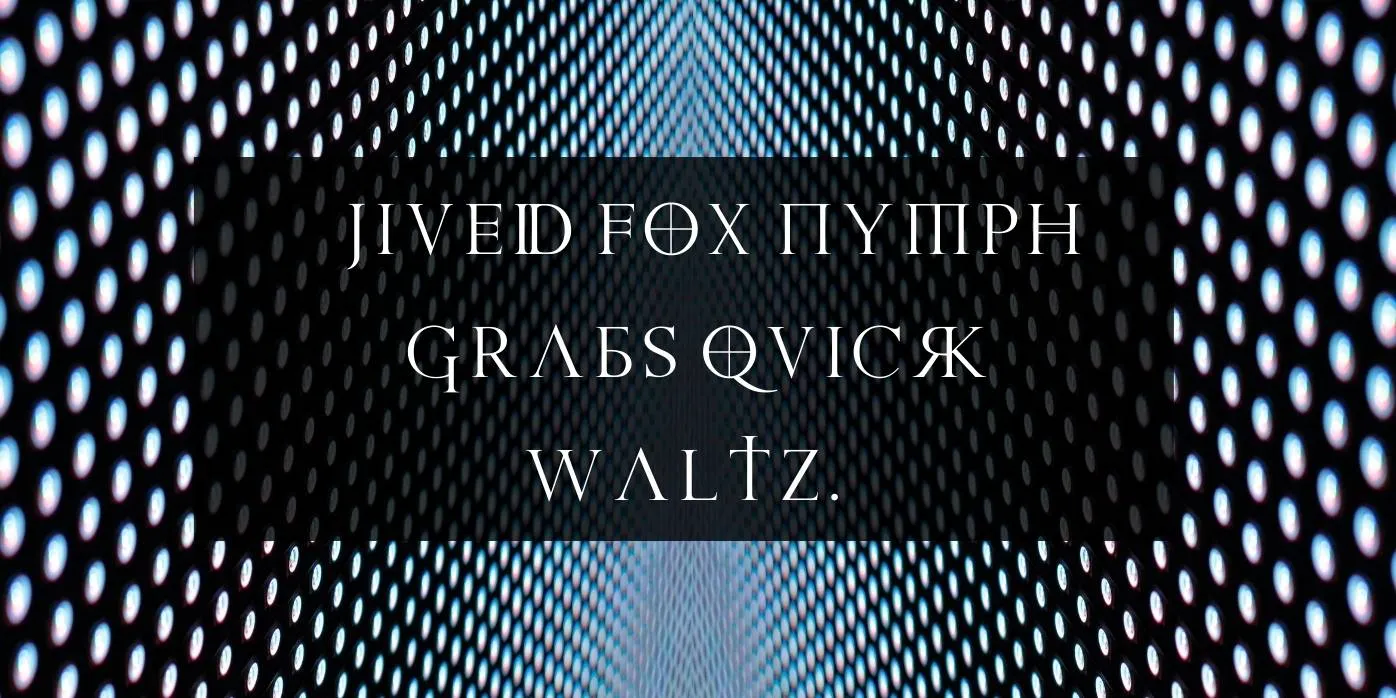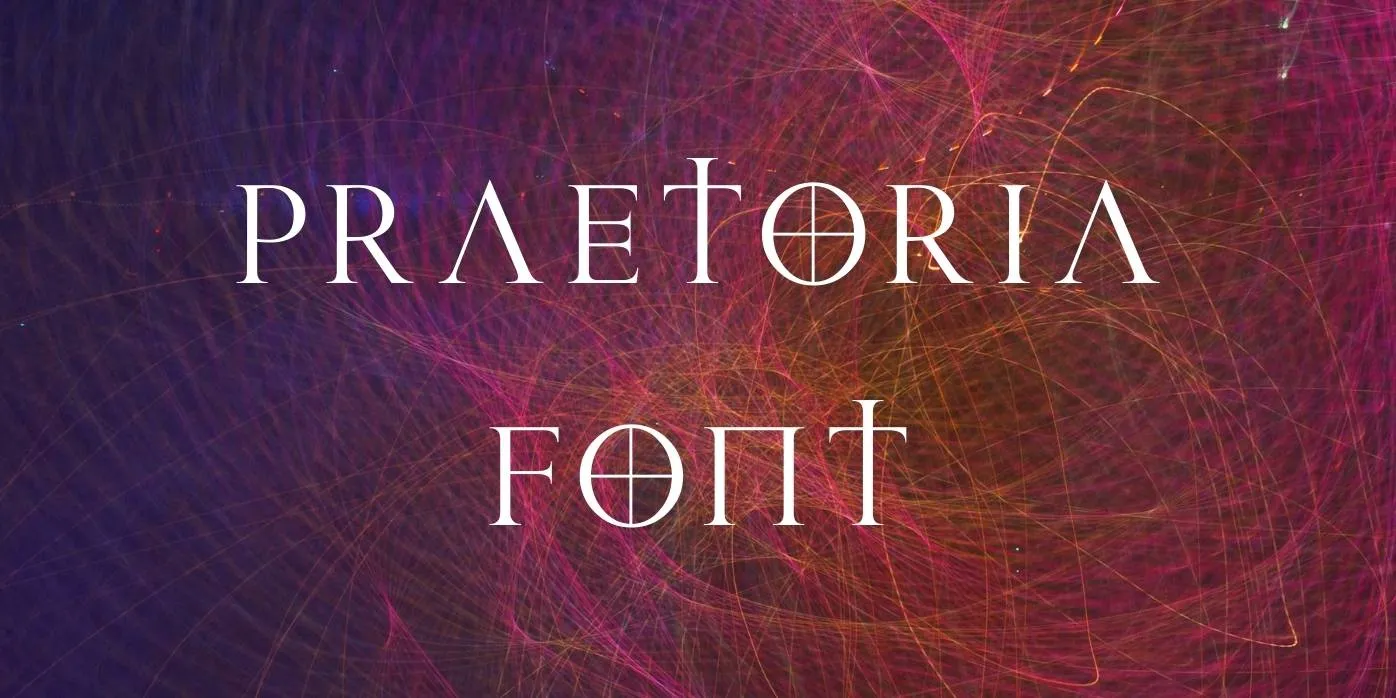
Praetoria Font
Praetoria Font is a serif typeface designed by Roman Capitals. It is free for personal use and commercial use. This cute font is perfect for logos, headers, invitations, and other creative designs. The font includes upper and lowercase characters, numbers, punctuation, ligatures, and international support.
This typeface has bold textures. Few lowercase letters are wider and taller. In addition, it has a stylish feel. The font also includes international support for a variety of languages.